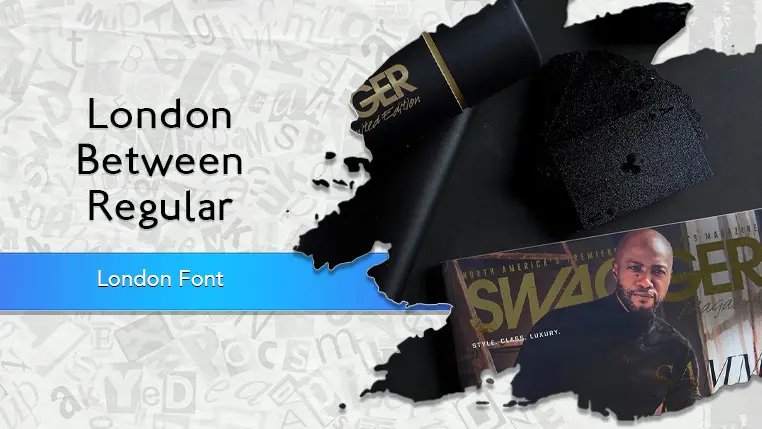
The London font family may be ideal for you if you enjoy working on an artistic design project. The lively, expressive look of this typeface, which was created by François Bruel, makes it ideal for Branding and Logos(Company logos, Brand identities that aim for a modern, approachable, and reliable image, Packaging design), Headlines and Titles(Magazine and newspaper headlines, Website and blog titles, Posters and banners, Social media graphics), Editorial Design(Magazines and brochures, Digital publications) and other light-hearted visual projects.
Regular, Regular are the three primary font styles of the London font family. You may build dynamic, visually appealing text layouts with the distinct flair that each style offers. With crisp, readable lines and a relaxed tone.